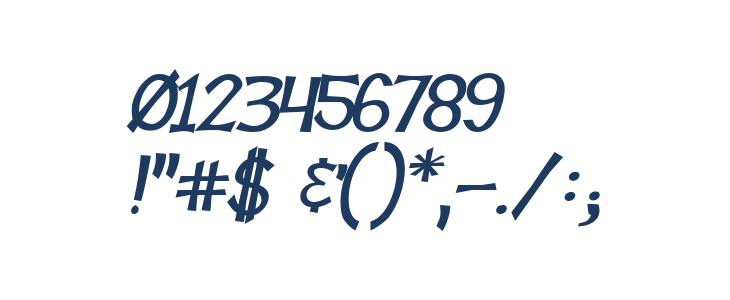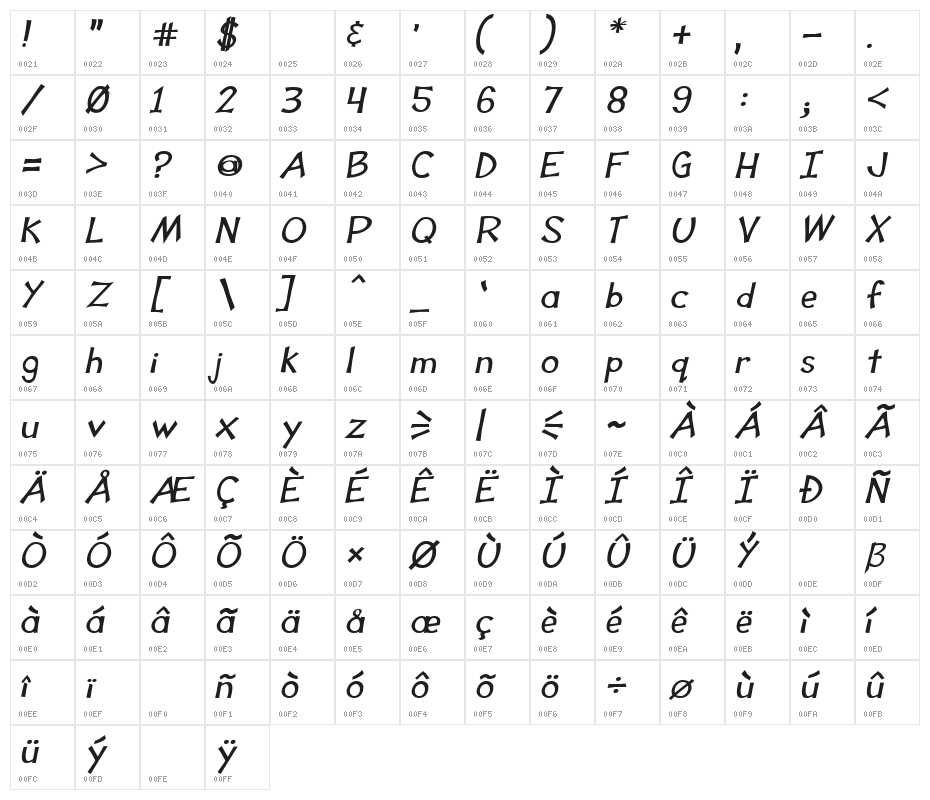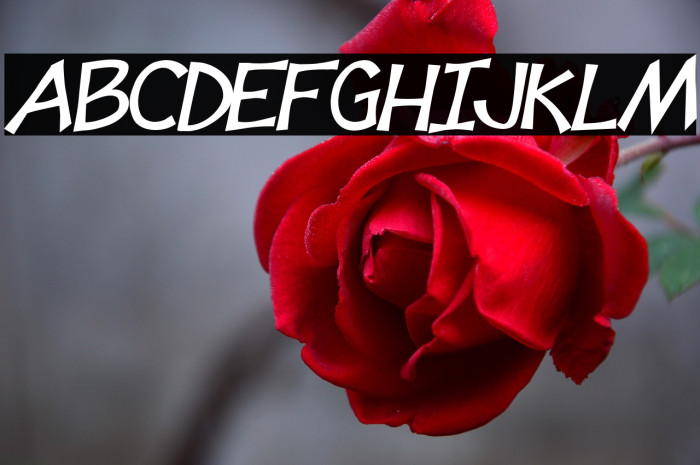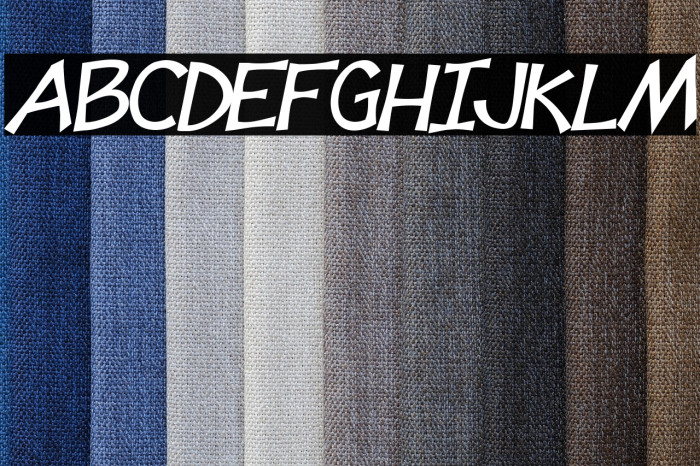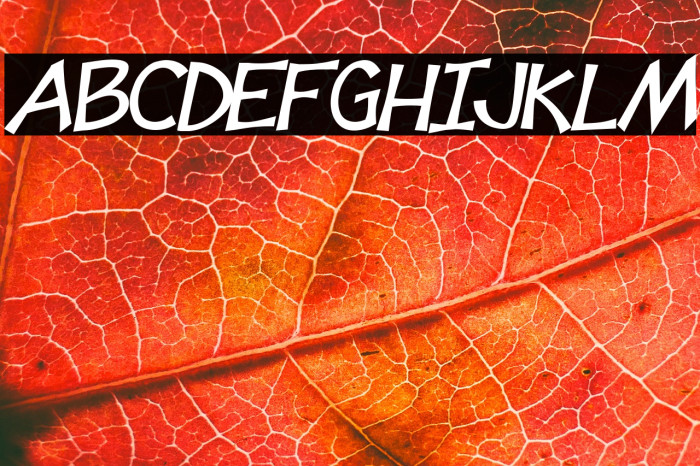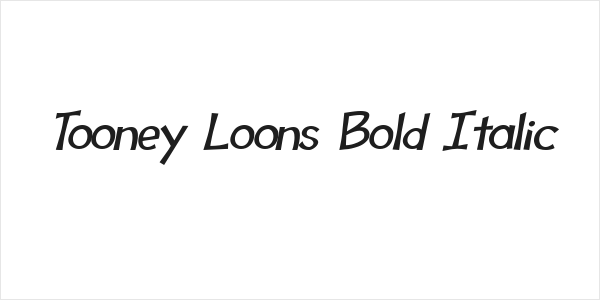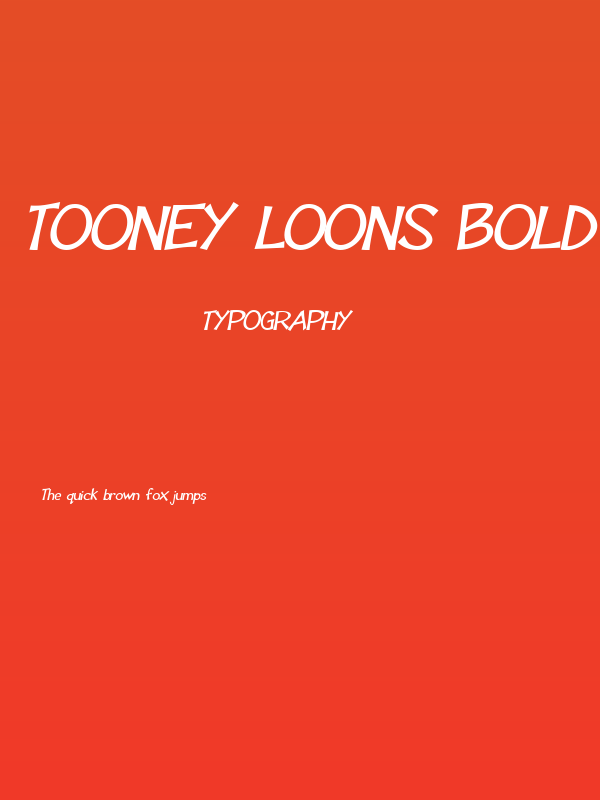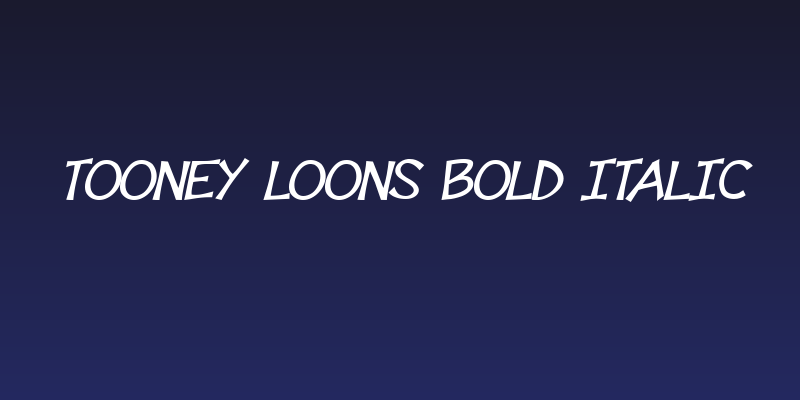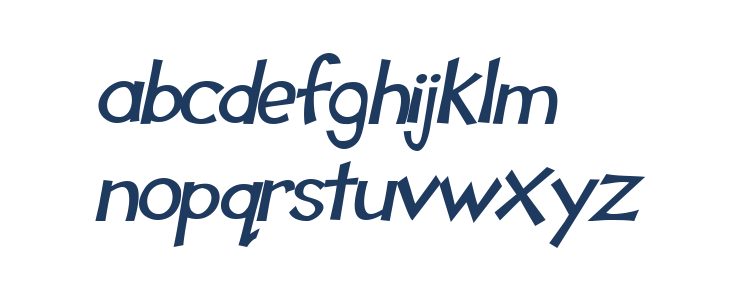
Tooney Loons Bold Italic Font
Tooney Loons Bold Italic Description
This font features a playful and dynamic style, characterized by its bold and italicized letterforms. The letters have a slight slant, adding a sense of movement and energy. The strokes are thick and consistent, providing a strong visual impact. The uppercase and lowercase letters maintain a uniform appearance, while the numerals and special characters complement the overall design. The font's unique style makes it suitable for creative and informal applications, where a sense of fun and vibrancy is desired.
| Proposed Projects | Ideal for children's books, comic strips, playful branding, and creative posters. |